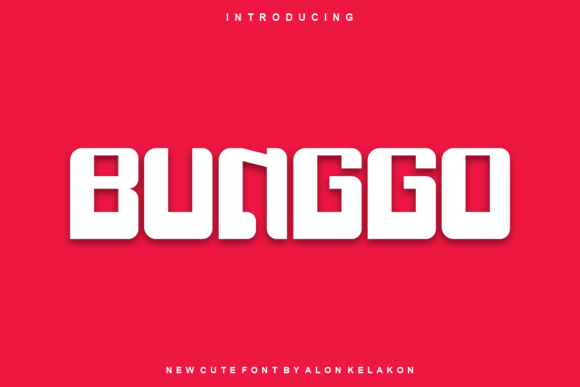
Introduction to Bunggo Font
Bunggo is a cool and modern display font.
Masterfully designed to become a true favorite, this font has the potential to bring each of your creative ideas to the highest level .
Key Features of Bunggo Font
Why Choose Bunggo Font?
Bunggo Font offers exceptional quality and versatility, making it a valuable addition to your design toolkit. Whether you’re creating for personal projects or commercial use, Bunggo Font delivers professional results.